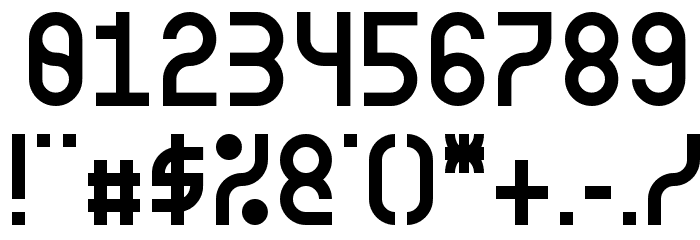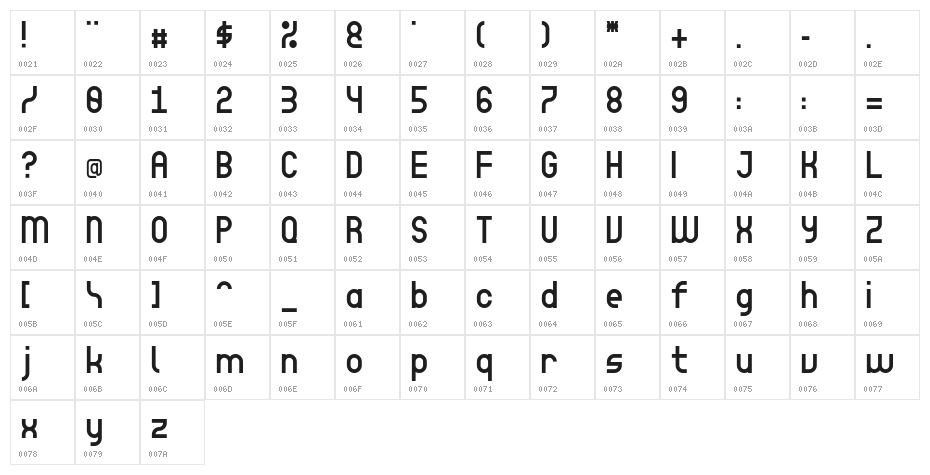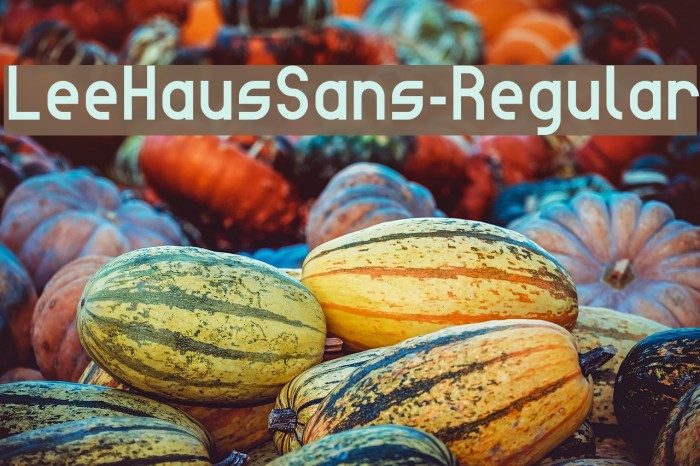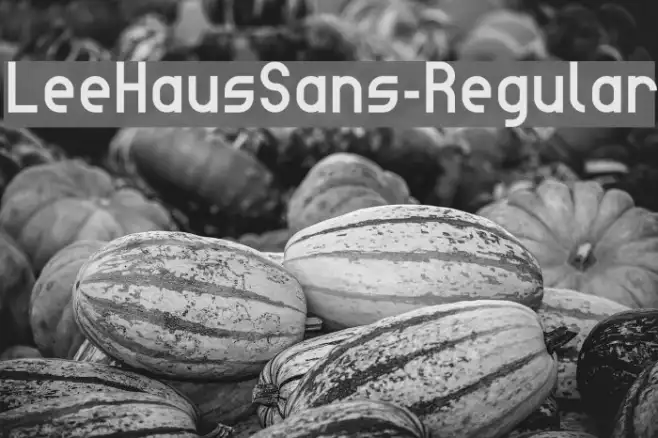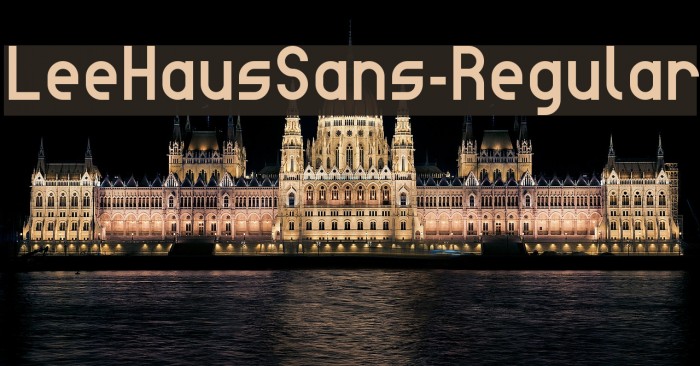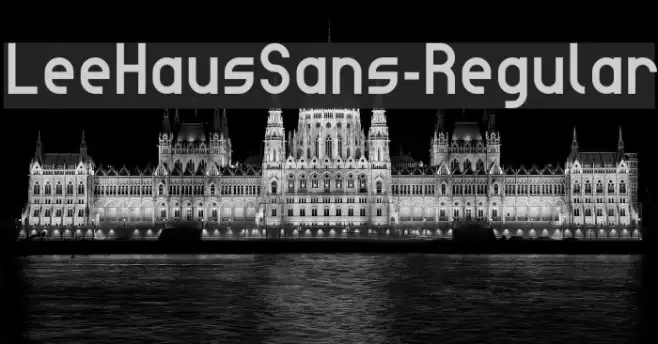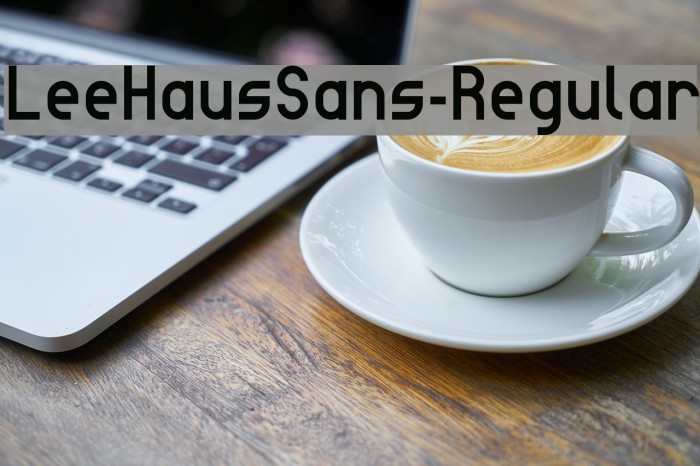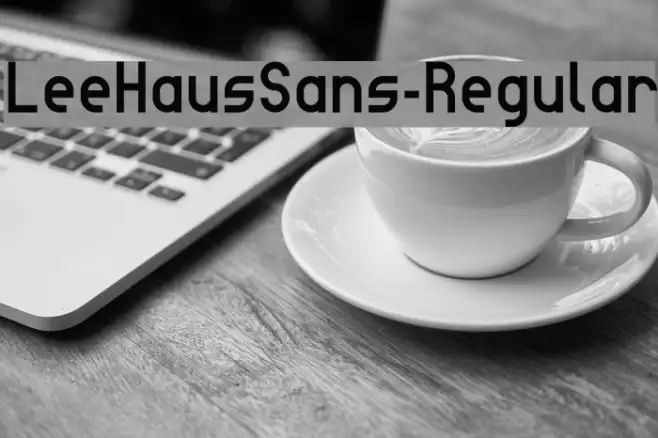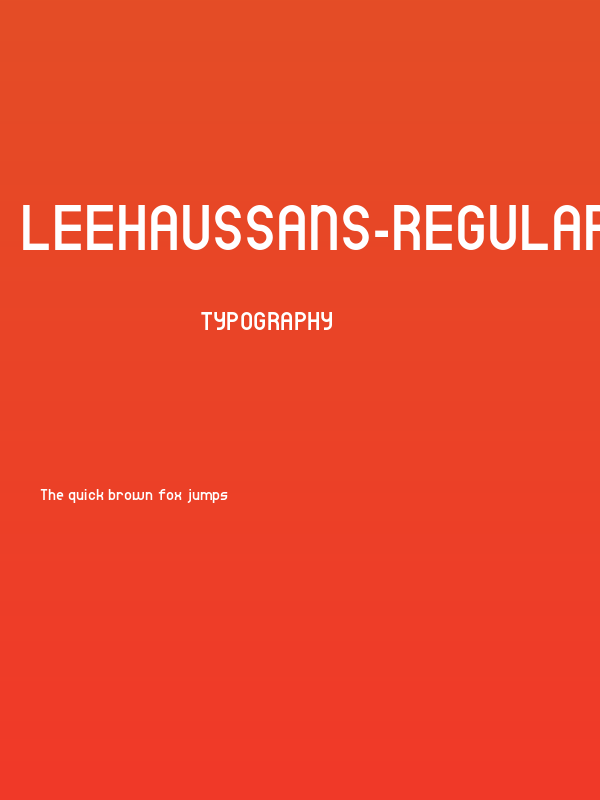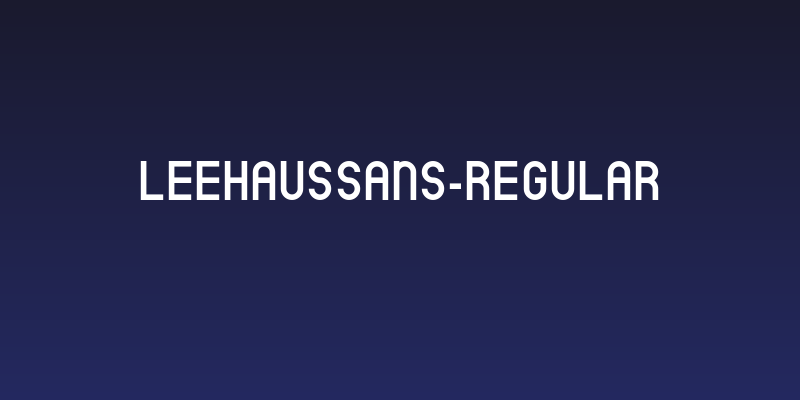
LeeHausSans-Regular Font
LeeHausSans-Regular Description
This font features a clean and modern sans-serif design with a geometric structure. The characters are uniform and consistent, offering a balanced appearance. The uppercase letters are bold and prominent, while the lowercase letters maintain a smooth and rounded form. Numbers are clear and easy to read, making them suitable for various applications. The special characters are distinct and well-integrated into the overall design. This font's simplicity and clarity make it versatile for both digital and print media.